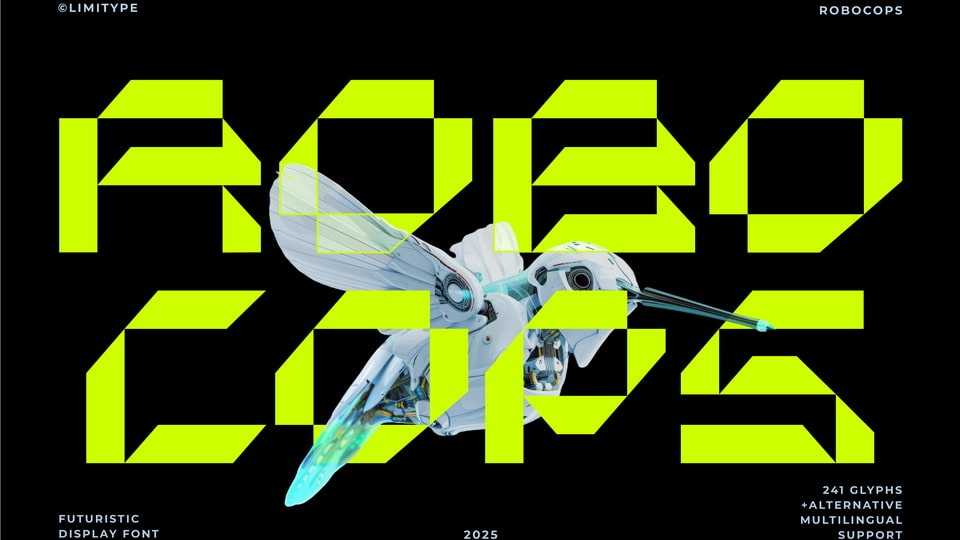
Download Robocops font, a bold display typeface with a futuristic style, featuring geometric shapes and distinct sharp angles. It is designed to convey a strong, modern, and iconic impression.